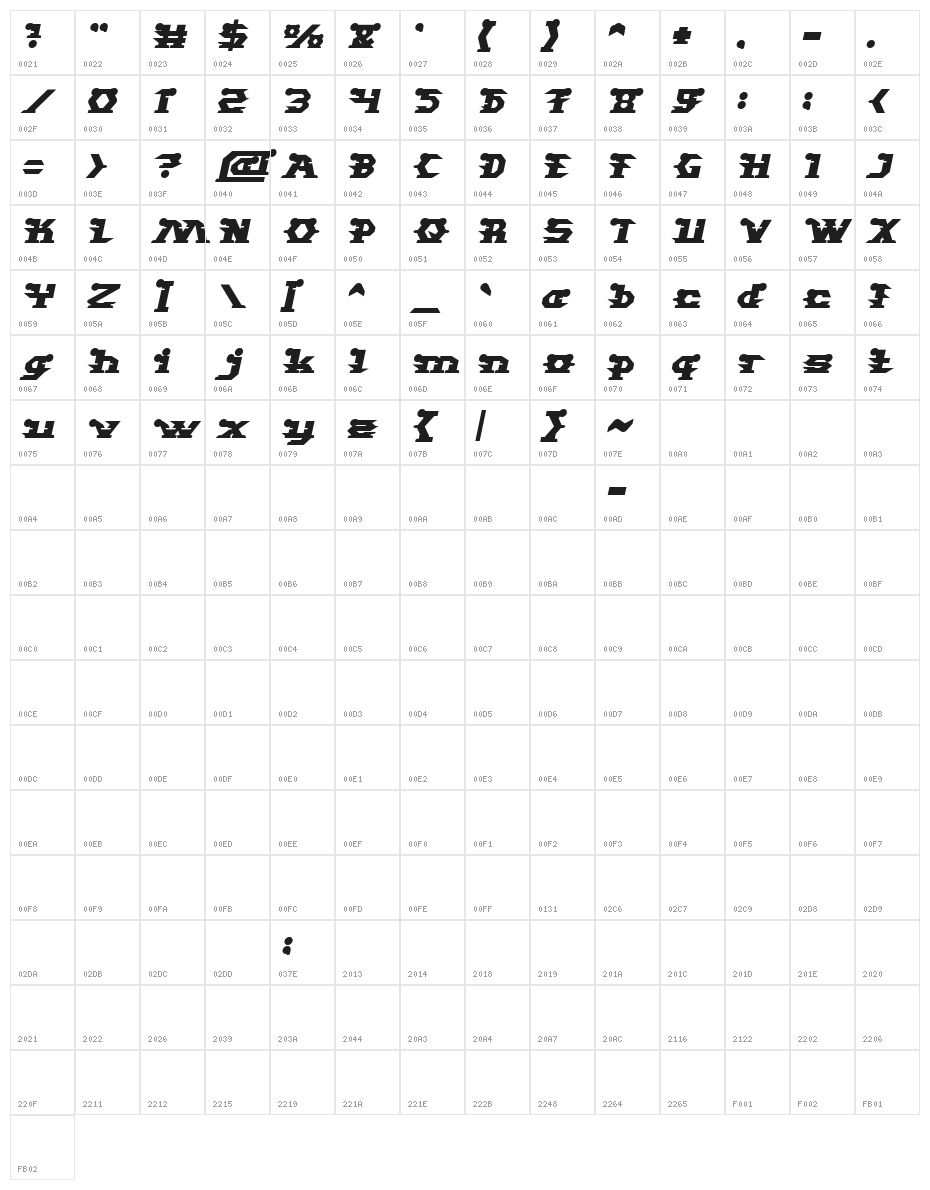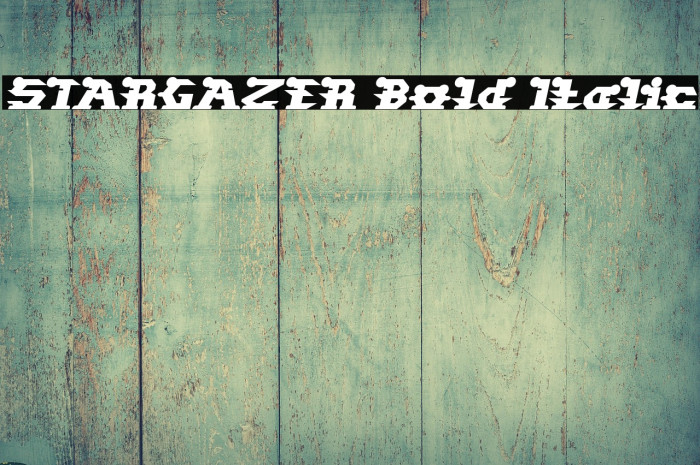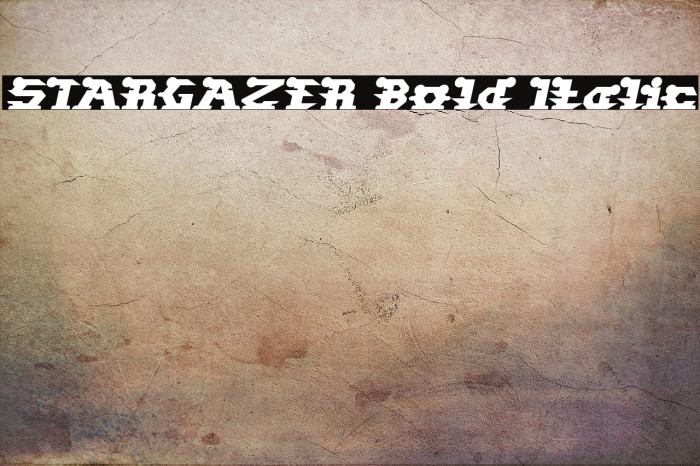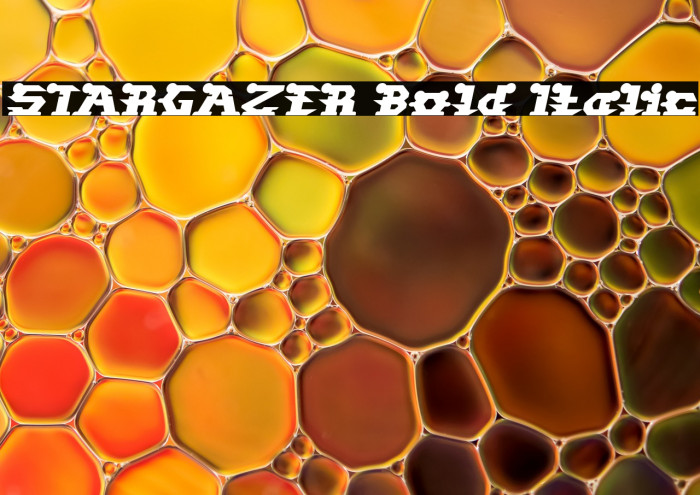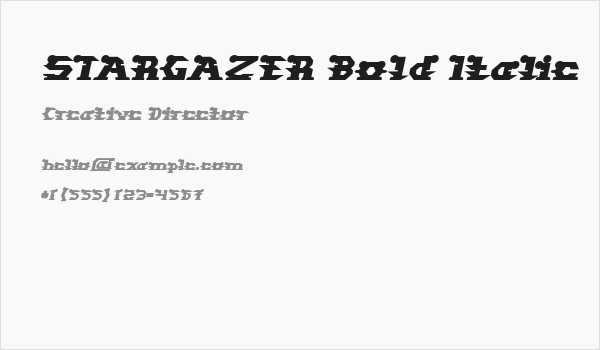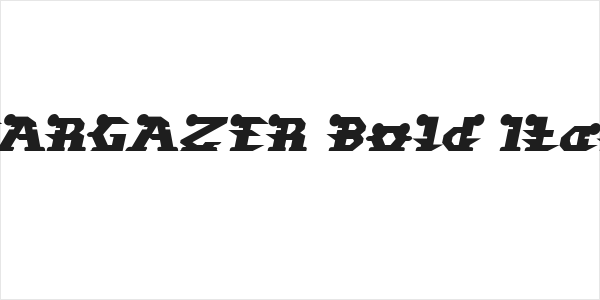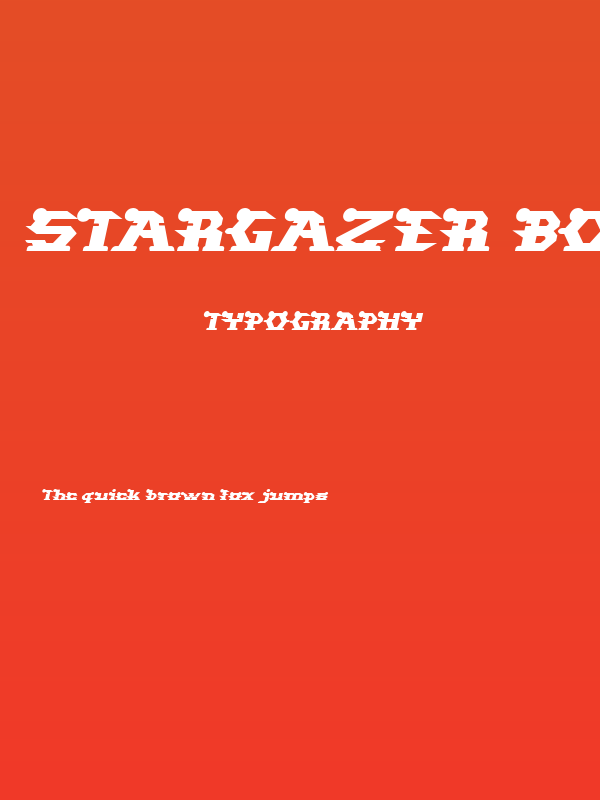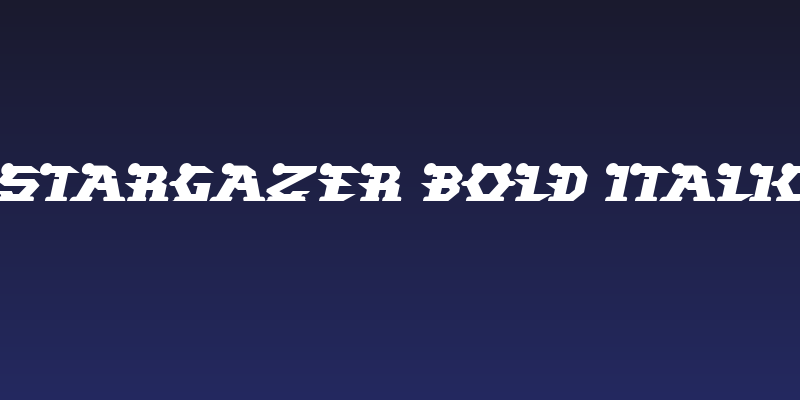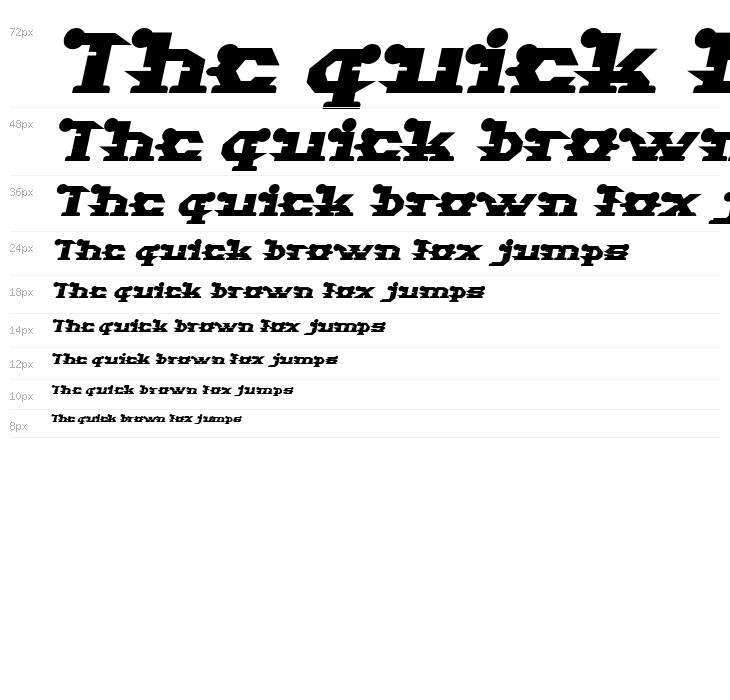
STARGAZER Bold Italic Font
STARGAZER Bold Italic Description
This font features a bold and italicized style with a distinctly futuristic and angular design. The characters are heavily stylized, incorporating sharp edges and unique cutouts that give it a dynamic and aggressive appearance. The uppercase and lowercase letters maintain a consistent style, with exaggerated serifs and a forward-leaning posture, enhancing the italic effect. The numbers and special characters follow the same design principles, ensuring uniformity across all glyphs. This font is particularly eye-catching and would stand out in any design project that requires a modern and edgy aesthetic.